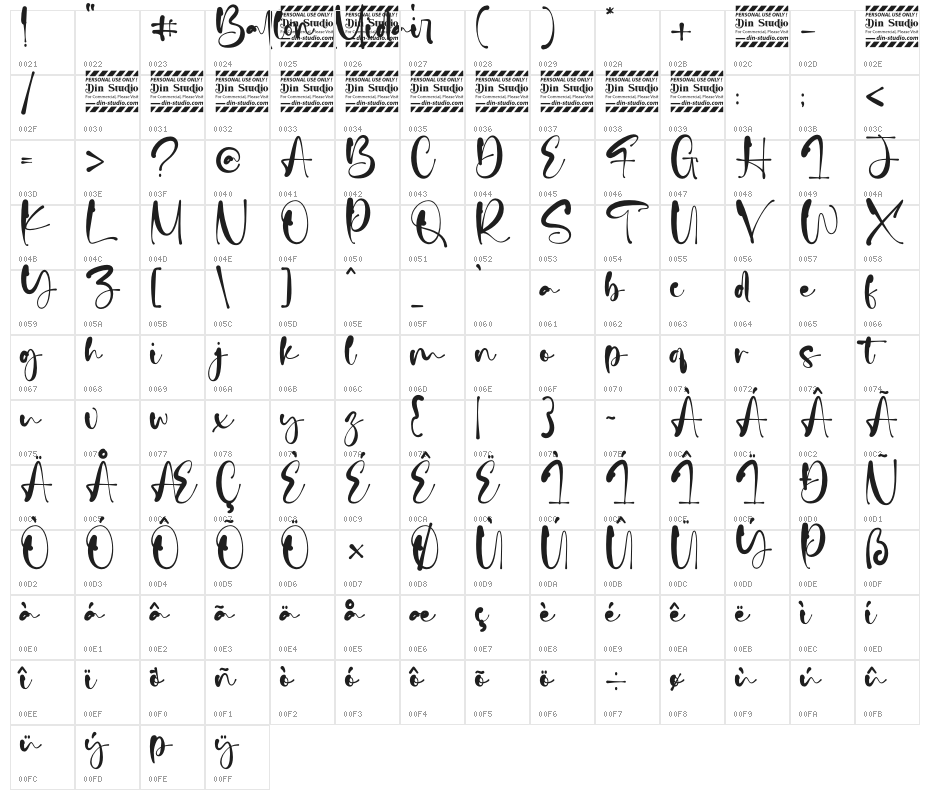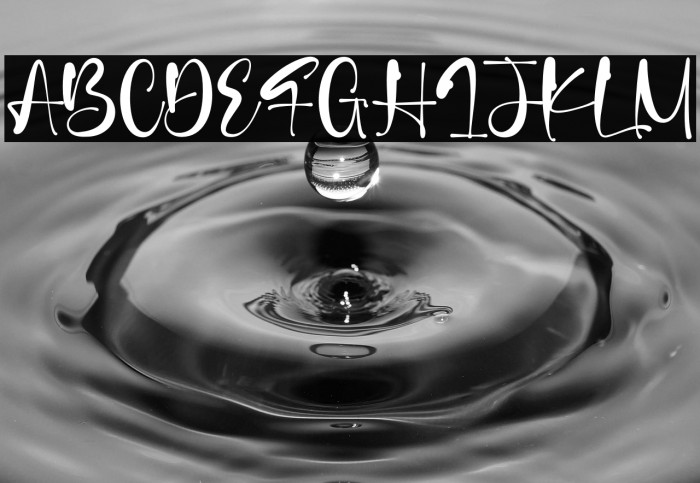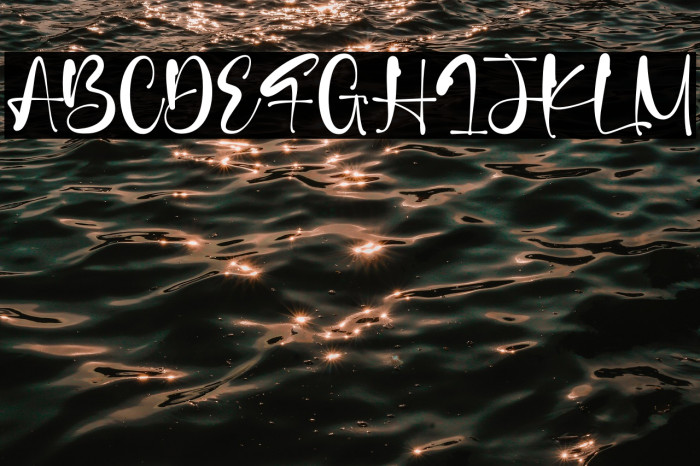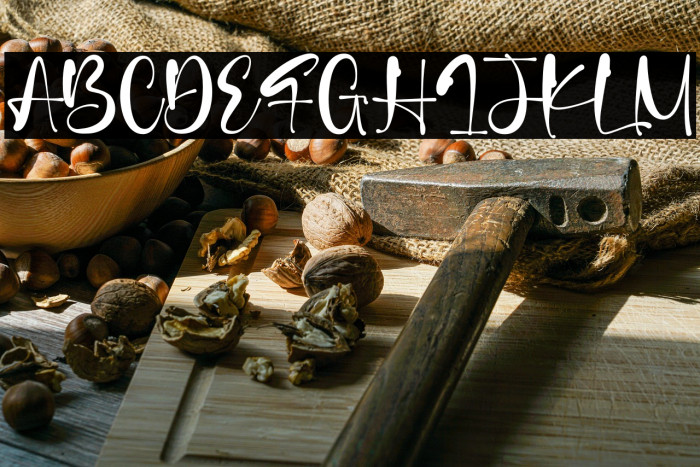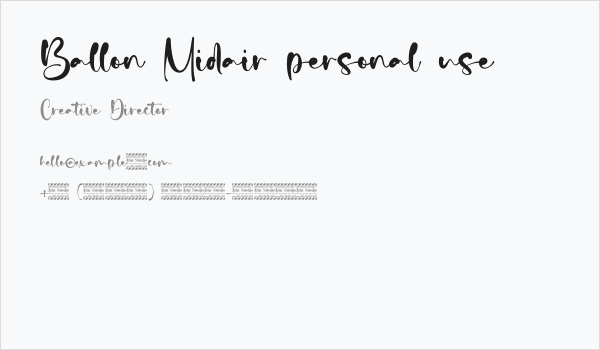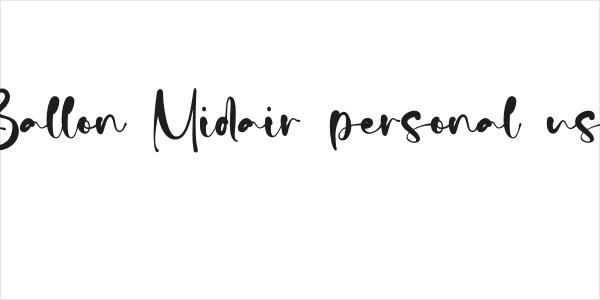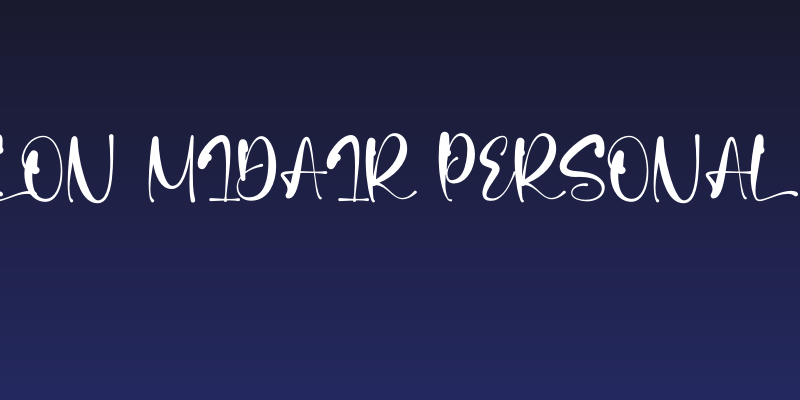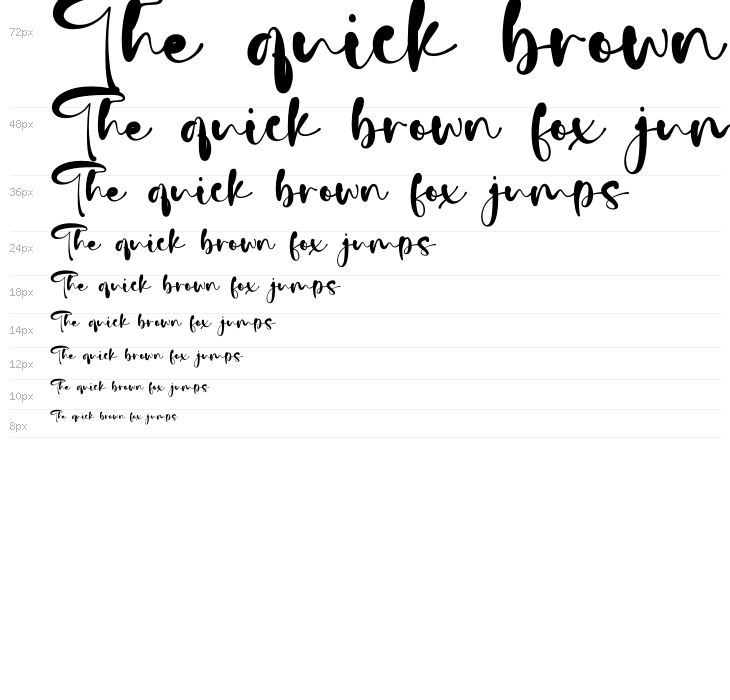
Ballon Midair personal use Font
Ballon Midair personal use Description
This font features a lively and expressive script style with a handwritten appearance. The uppercase letters are bold and dynamic, with fluid strokes that convey a sense of movement and energy. The lowercase letters maintain a consistent flow, with some characters featuring loops and swashes that add to the font's playful nature. The numbers and special characters are designed to complement the overall style, maintaining the same energetic and whimsical feel. This font is perfect for projects that require a personal touch, such as invitations, greeting cards, and branding materials.
| Proposed Projects | Ideal for invitations, greeting cards, branding, and any project needing a personal touch. |